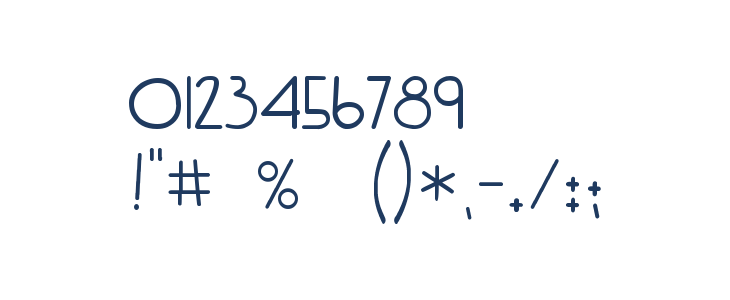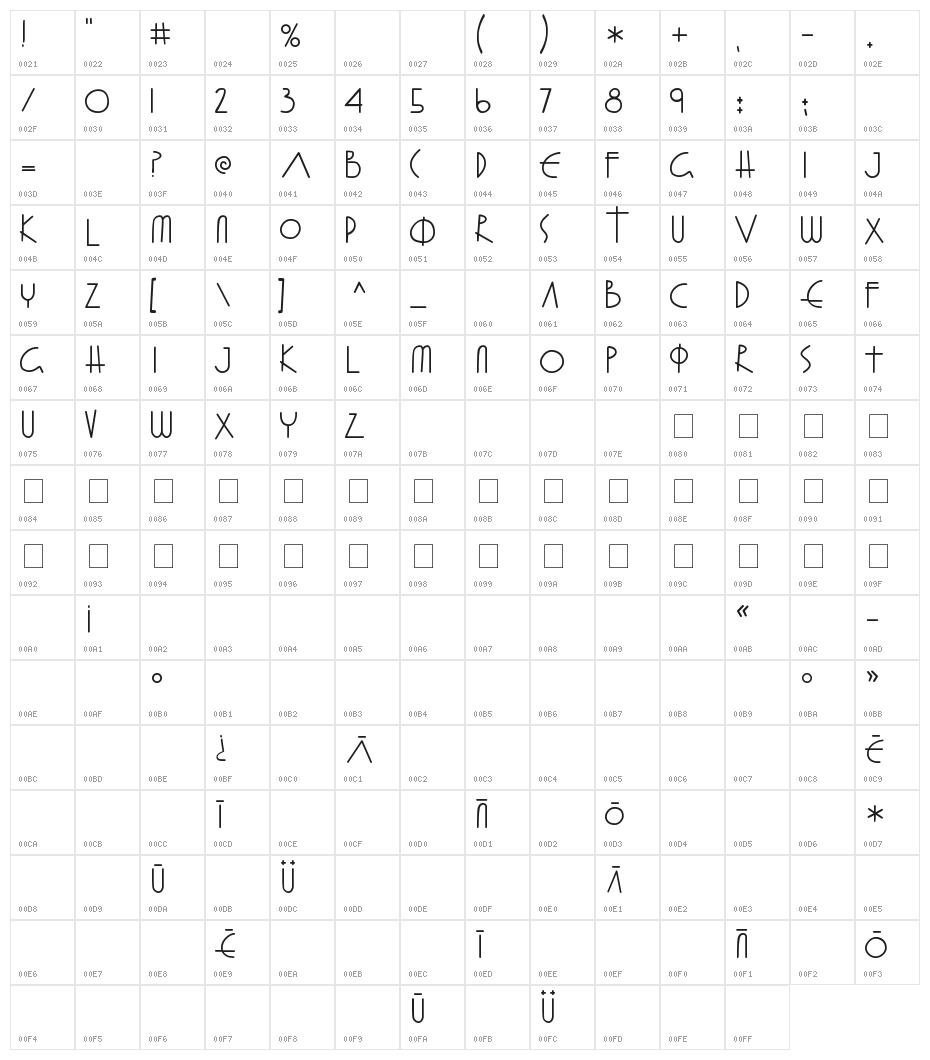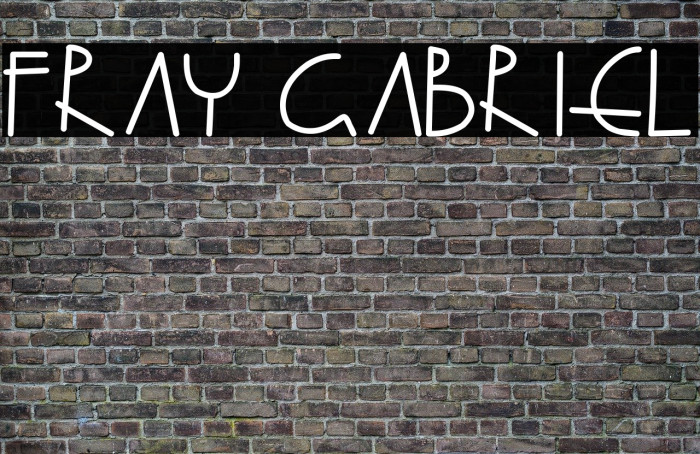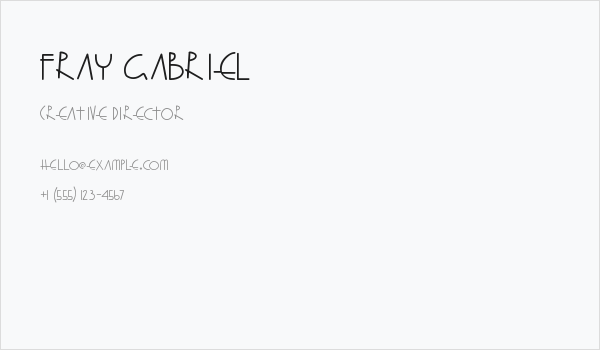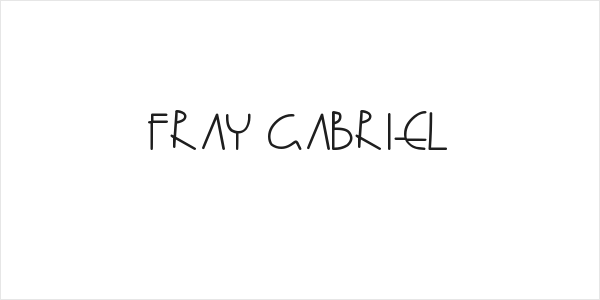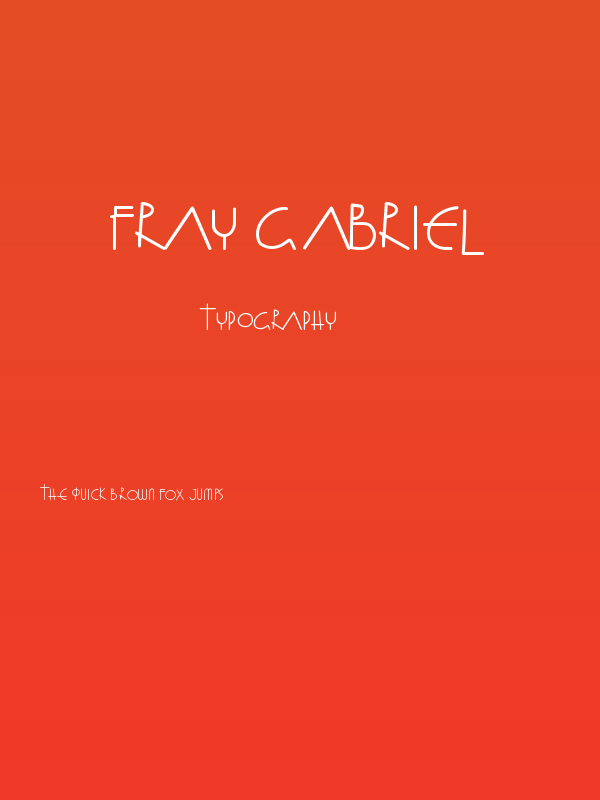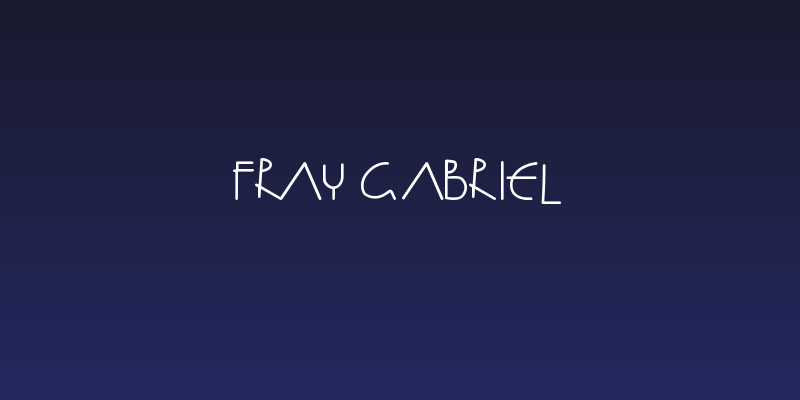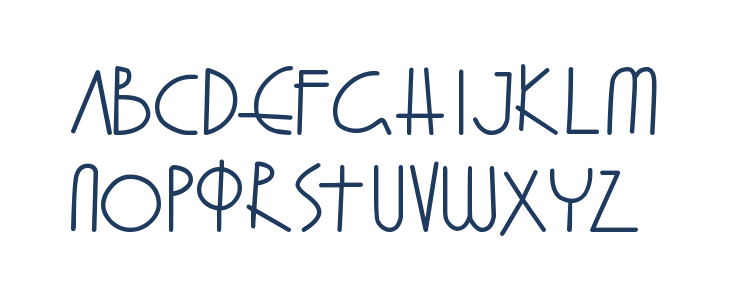
Fray Gabriel Font
Fray Gabriel Description
This font features a unique and playful design with a handwritten style that combines both uppercase and lowercase letters in a consistent manner. The characters are slightly elongated with rounded edges, giving them a friendly and approachable appearance. The strokes are uniform in thickness, contributing to a clean and modern look. The numerals and special characters maintain the same playful aesthetic, ensuring a cohesive design throughout. This font is ideal for projects that require a touch of whimsy and creativity, such as children's books, greeting cards, or playful branding.
| Proposed Projects | Ideal for children's books, greeting cards, playful branding, and creative projects. |